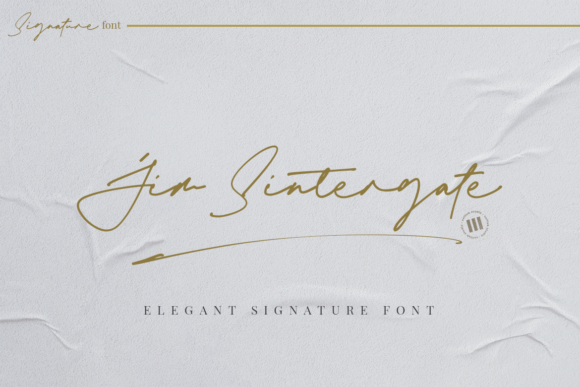
Introducing the Exquisite Jim Sintergate Font: A Timeless Handwritten Masterpiece
In a world of digital communication, where words often get lost in a sea of emails and social media posts, the choice of font can make all the difference. Jim Sintergate Font, a creation of colllab studio, stands above the ordinary, captivating hearts with its timeless handwritten charm. It's not just a font; it's an expression of individuality, a reflection of your unique style.
With its effortlessly relaxed strokes and elegant swashes, Jim Sintergate Font invites you to create designs that speak volumes. It's a font that evokes emotions, conveying a sense of nostalgia and personal connection. Every letter, crafted with meticulous attention to detail, is a testament to the beauty of handwritten artistry.
Unleash Your Creativity with Jim Sintergate Font
With Jim Sintergate Font, let your imagination run wild. Design wedding invitations that capture the romance of the moment, thank you cards that leave a lasting impression, or heartfelt quotes that resonate with your audience. Create logos that exude sophistication and business cards that reflect your unwavering commitment to quality.
But Jim Sintergate Font's versatility extends beyond traditional design realms. Use it to craft social media graphics that demand attention, or to add a personal touch to your packaging. It's a font that seamlessly blends the timeless elegance of handwritten strokes with the versatility of digital communication.
Embracing Jim Sintergate Font means embracing a font that effortlessly conveys authenticity and sincerity. It's a font that speaks to your audience on a deeper level, leaving an enduring impression that goes beyond words. In a world of fleeting trends, Jim Sintergate Font stands as a testament to the power of timeless design, inviting you to create designs that truly connect.